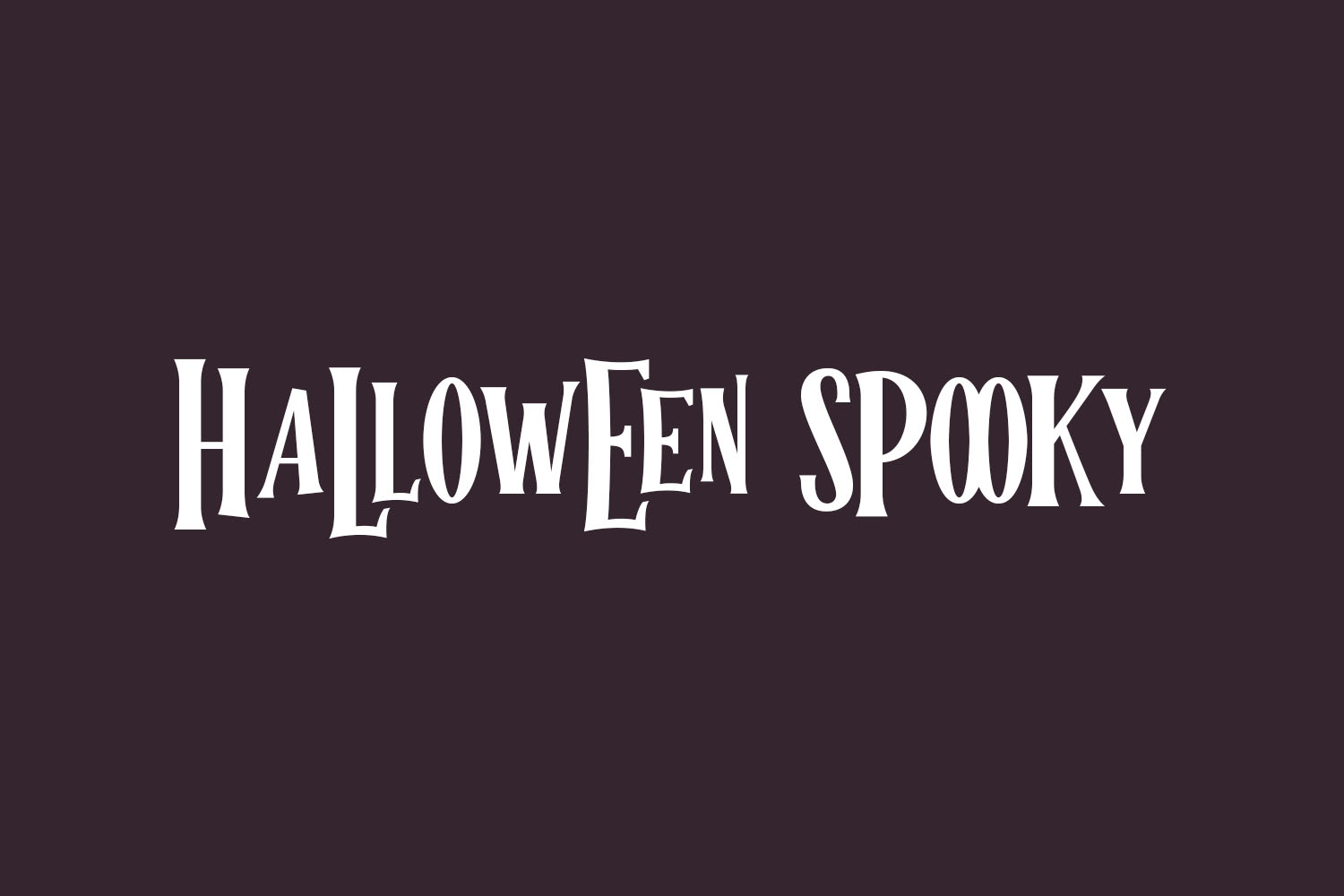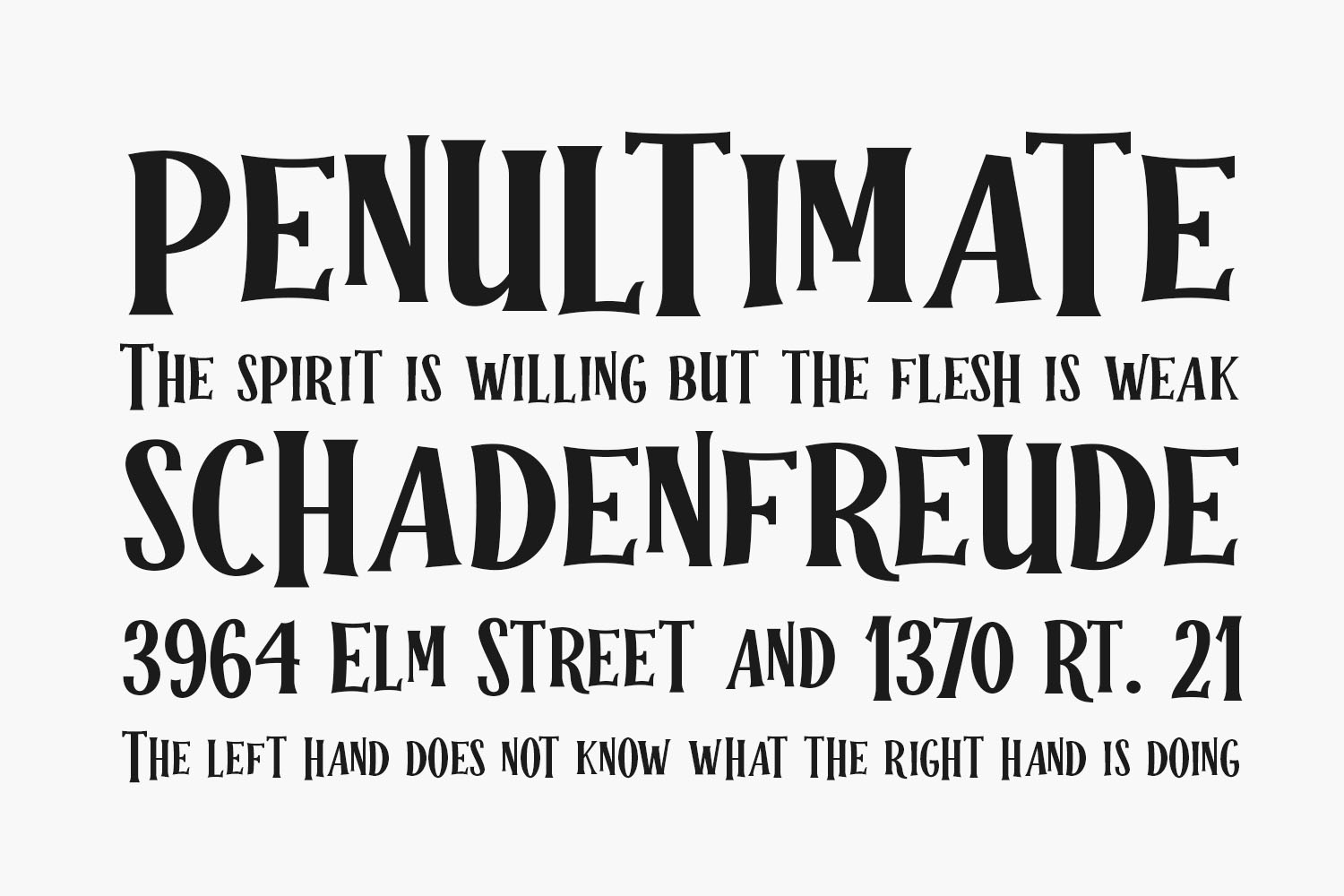
Designed with a captivating character, Halloween Spooky Free Font font is your perfect companion for Halloween festivities. This font exudes a powerful aura that enhances your Halloween crafts, spine-chilling movie posters, t-shirts, and any project in need of a striking aesthetic. Crafted to be a beloved choice, Halloween Spooky font has the potential to elevate all your creative concepts to new heights, making it an essential addition to your design toolkit. Halloween Spooky Free Font is free for personal use only. Please purchase the full version for commercial use.
Designed by Ahwe Project